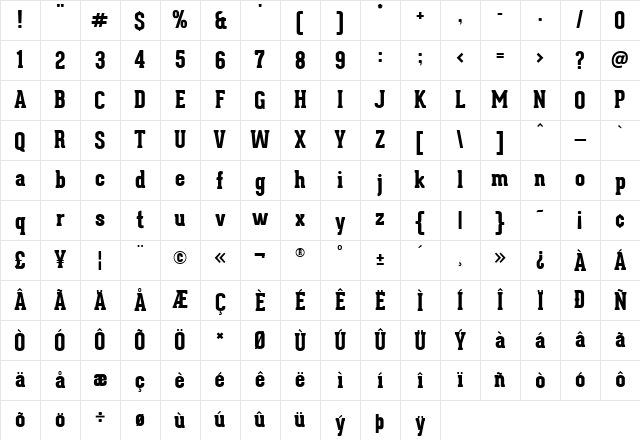
Complete Geared Slab Extrabold glyph index. Displaying only characters natively supported by Geared Slab Extrabold font.
Geared Slab features prominent, blocky serifs that give it a confident, grounded presence - equally at home in editorial settings and bold branding work. Its bold stroke weight gives it real presence on the page.